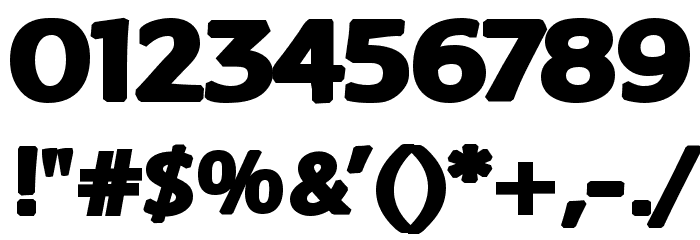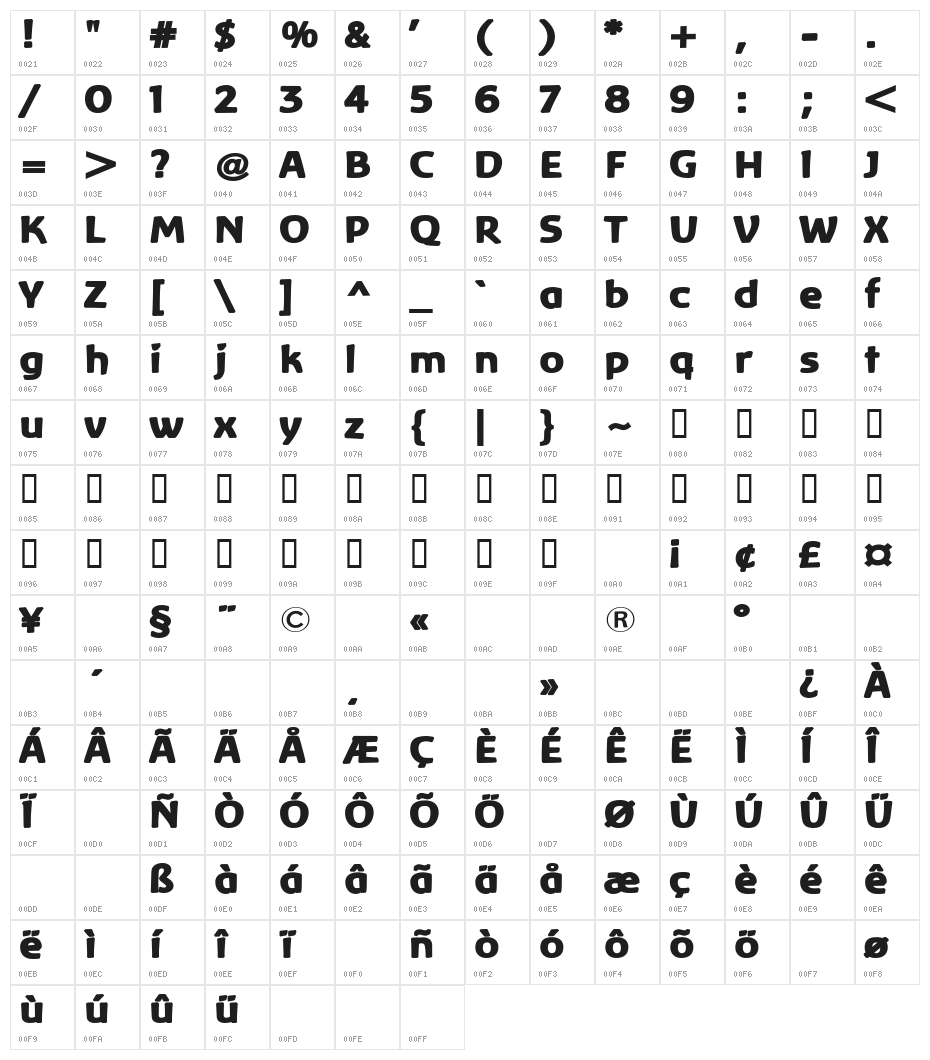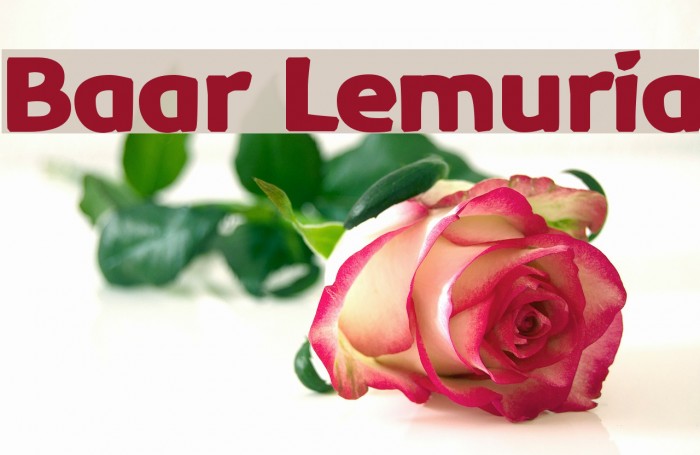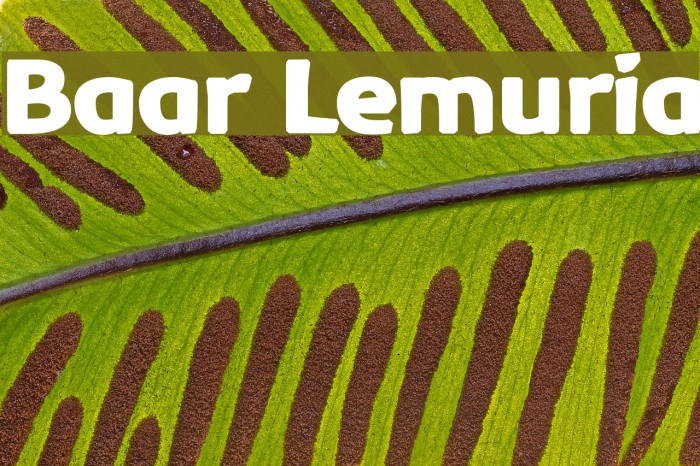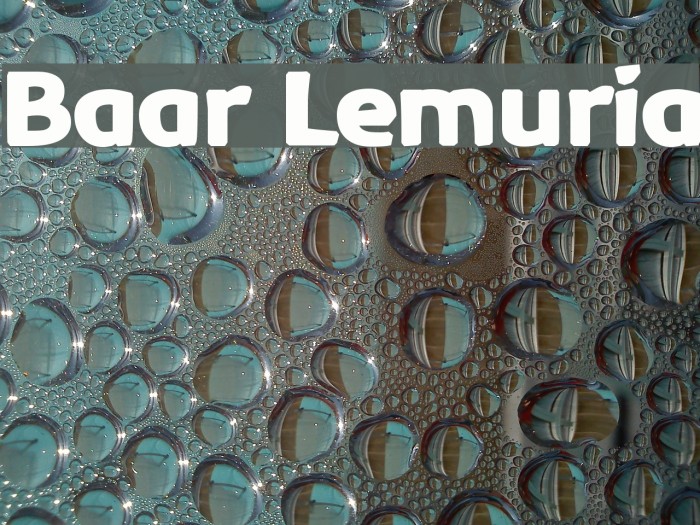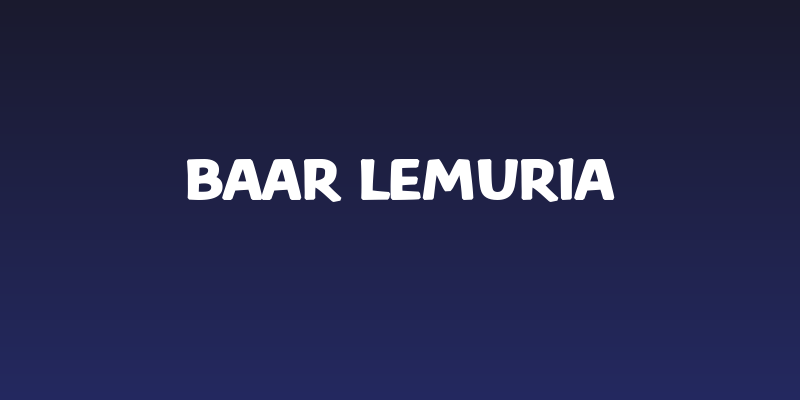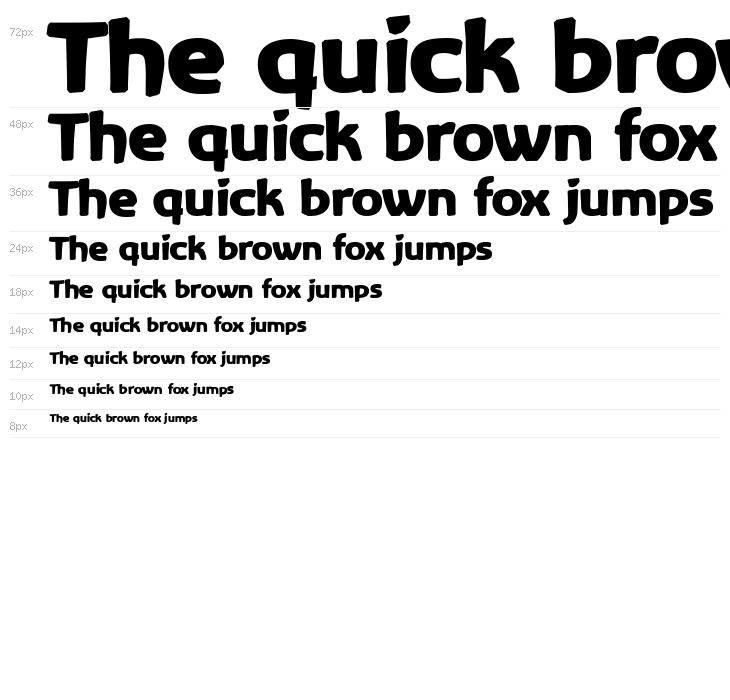
Baar Lemuria Font
Baar Lemuria Description
This font features a bold and rounded style, offering a friendly and approachable appearance. The characters are well-balanced with a consistent stroke width, providing a uniform look across both uppercase and lowercase letters. The numbers and special characters maintain the same rounded aesthetic, ensuring cohesion throughout. The font's design is modern yet playful, making it suitable for a variety of creative projects. Its boldness ensures readability, while the rounded edges soften its overall impact, making it versatile for both digital and print media.